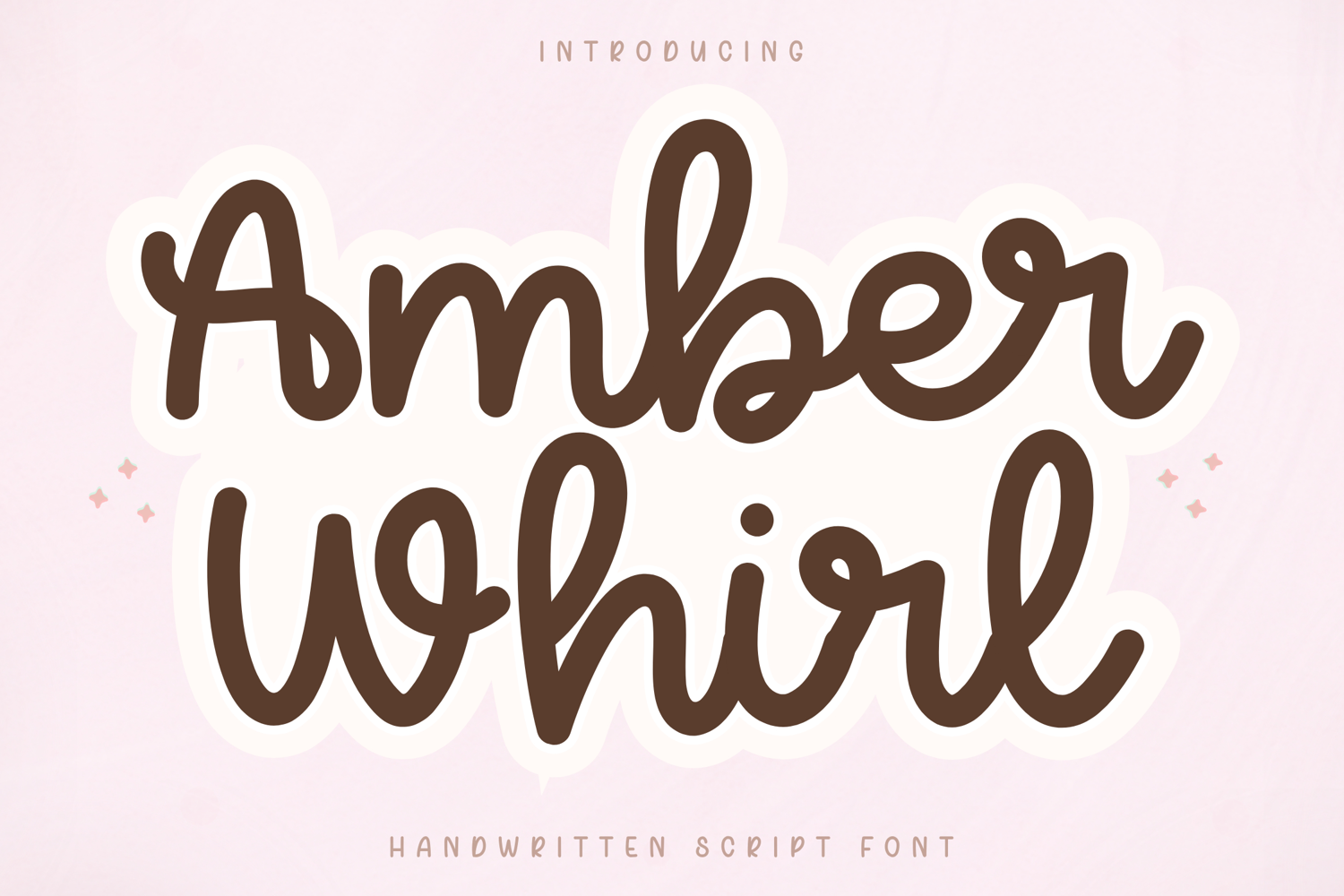
Amber Whirl - Handwritten Script Font
Amber Whirl is a playful and modern handwritten script font with a bold, cozy, and feminine personality. Designed with smooth flowing curves and soft rounded strokes, this font creates a warm handwritten feel that is stylish, approachable, and easy to read.
Its bubbly script style makes it perfect for creators who want designs that feel cute, friendly, and eye-catching while still looking clean and professional. Amber Whirl works beautifully for branding, social media graphics, stickers, Cricut crafts, packaging, and branding designs.
Key Features:
Uppercase & lowercase letters
Smooth handwritten script style
Rounded and friendly strokes
Numbers, punctuation & symbols
Perfect For:
Logo & Branding
Stickers & Cricut projects
Social media posts
Packaging & labels
Planner & journal designs
Cute feminine designs
Amber Whirl is designed to create a soft, fun, and aesthetic handwritten vibe that feels both trendy and versatile for everyday creative projects.